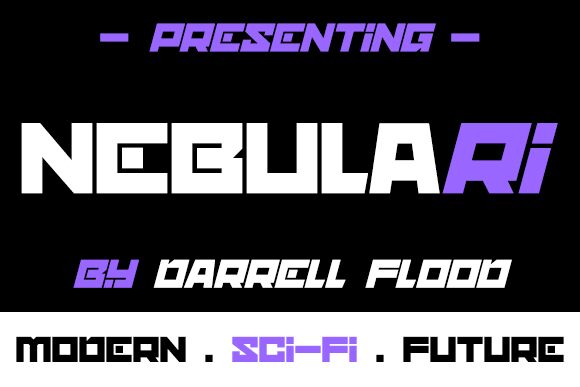
Nebulari, a bold and expansive display font, radiates a distinct techno-inspired aesthetic. Designed by Darrell Flood, this font's striking angular forms and expanded width create a captivating visual impact. Nebulari's bold, eye-catching presence lends itself particularly well to headers, branding, and attention-grabbing design elements. Its futuristic, high-tech appearance makes it a versatile choice for a wide range of applications, from digital interfaces and product packaging to event posters and album artwork.
Nebulari's unique personality and striking presence make it a compelling addition to any designer's typographic toolkit.